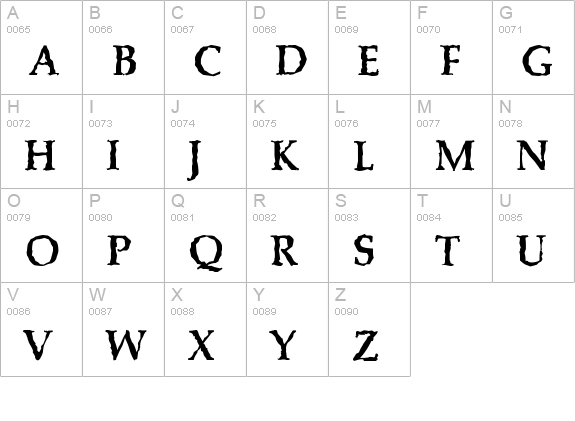
MarathonRandom-Bold Font Details
MarathonRandom-Bold is a strong, high-contrast variant in the MarathonRandom typeface family \xE2\x80\x94 well suited to headlines, attention-grabbing titles, and strong calls-to-action.
MarathonRandom-Bold font is a bold and dynamic typeface that exudes energy and strength. Its strong, sturdy letterforms make it perfect for grabbing attention and making a bold statement in any design project. The unique randomness of the characters adds a touch of creativity and originality to your text. This font is not only visually striking but also highly versatile, making it suitable for a wide range of design applications, from posters and headlines to logos and branding materials. Whether you're looking to convey a sense of power and determination or simply want to inject some personality into your designs, MarathonRandom-Bold font is sure to deliver. Best of all, MarathonRandom-Bold font is available for free download at FontsMarket.com. So why wait? Add this powerful and expressive typeface to your font collection today and unleash its full potential in your next project.